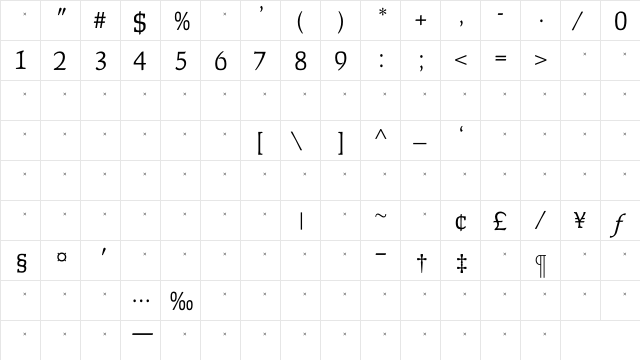
FaustLightTab Regular
Design Context for FaustLightTab Typeface
FaustLightTab is a composed and adaptable typeface that performs quietly and consistently across a wide range of design contexts. Its slender proportions lend an understated elegance to any composition.